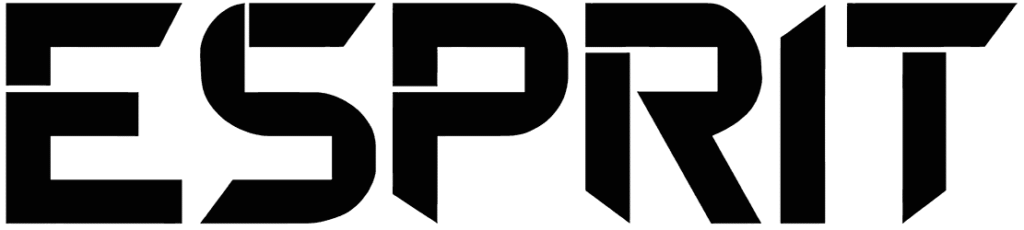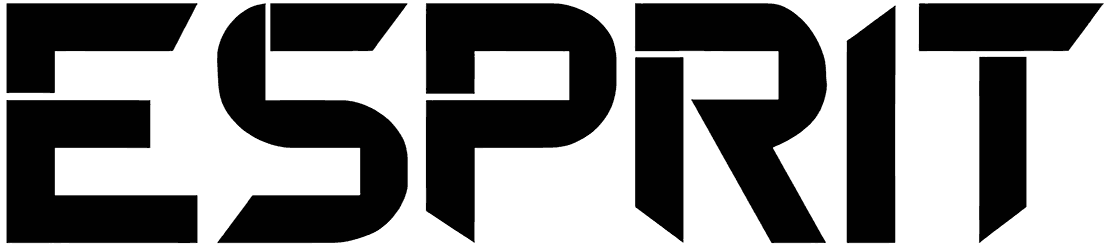
Esprit Font
For a design that you want to look strong and modern, using an Esports font would work well, and this item is one of your options. Esprit font with its bold face can be a perfect letterform for a new car introducing billboard. This font doesn’t offer lowercase letters and most punctuation marks, but we invite you to test it and see how cool the outcome will be.